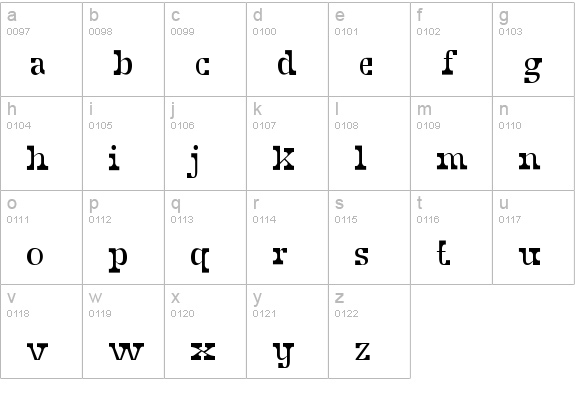
Introducing DustGutter font, a captivating and versatile typeface that exudes a rugged yet elegant charm. This unique font combines rough edges and intricate details to create a distinct visual impact, making it perfect for a wide range of design projects. DustGutter font is a free typeface that adds a touch of grit and personality to your creations. Whether you're working on branding, posters, packaging, or any other design project, this font will help you stand out and make a statement. You can freely download DustGutter font at FontsMarket.com and unleash your creativity with this eye-catching typeface. Don't miss out on the opportunity to add a touch of edge and sophistication to your designs with DustGutter font.